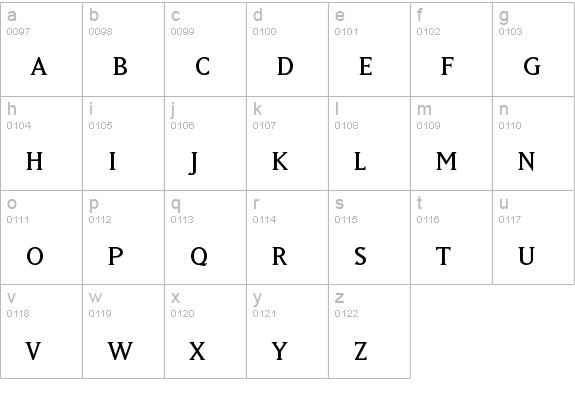
MatrixSmallCaps-Book Font Details
MatrixSmallCaps-Book is a comfortable, highly readable variant in the MatrixSmallCaps typeface family \xE2\x80\x94 well suited to long-form body text, articles, and editorial content.
MatrixSmallCaps-Book is a sleek and modern typeface that exudes elegance and sophistication. With its small caps style, this font is perfect for adding a touch of class to any design project. The clean lines and balanced proportions of MatrixSmallCaps-Book make it versatile and easy to read, making it suitable for a wide range of applications. And the best part? MatrixSmallCaps-Book is available for free download at FontsMarket.com. Whether you're working on a professional project or simply looking to add a stylish flair to your personal creations, this font is a fantastic choice. Don't miss out on the opportunity to enhance your designs with the timeless appeal of MatrixSmallCaps-Book. Download it today and elevate your typography game!